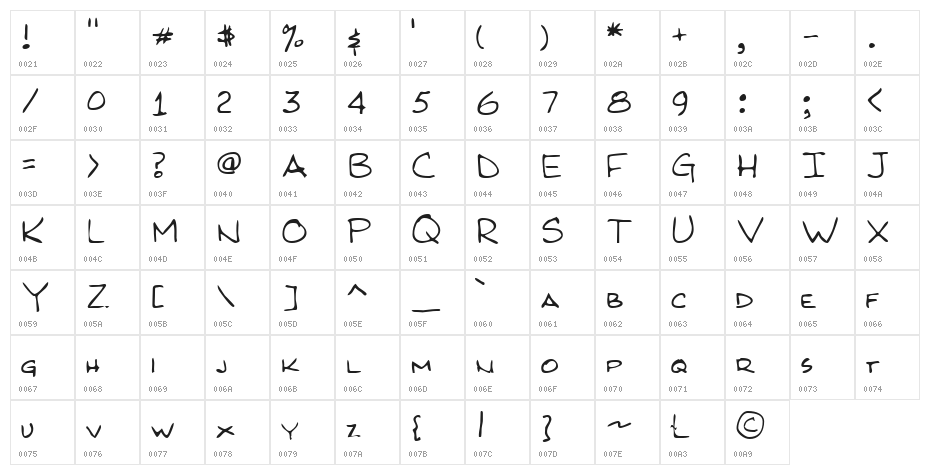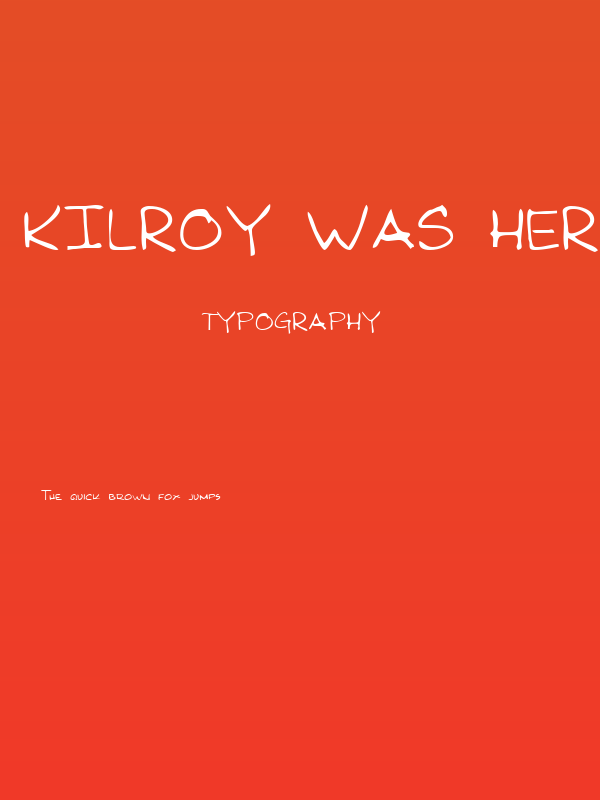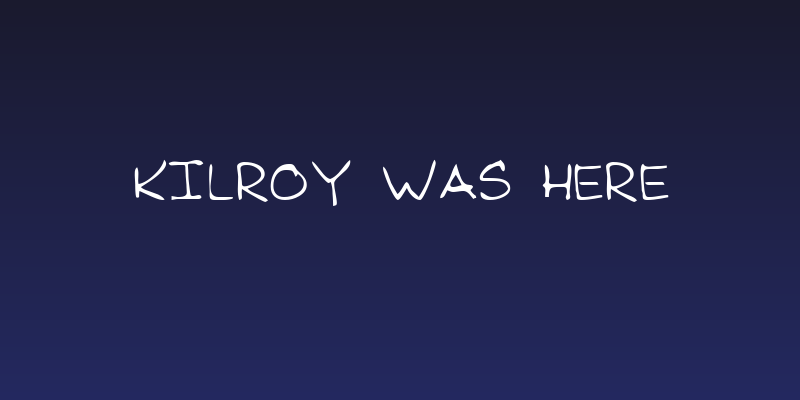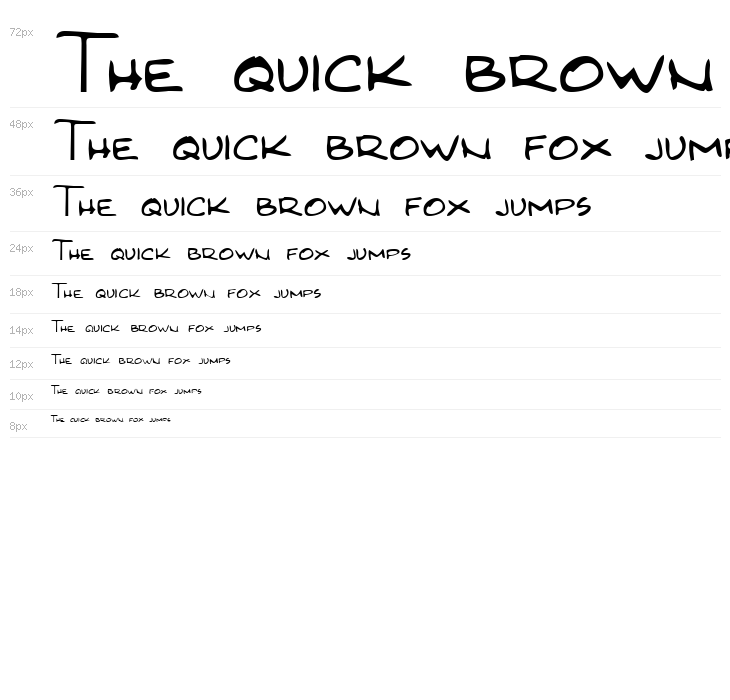
Kilroy Was Here Font
Kilroy Was Here Description
This font exudes a playful and informal vibe, characterized by its hand-drawn appearance. The letters are slightly irregular, giving it a casual and approachable feel. The uppercase and lowercase letters maintain a consistent style, with rounded edges and a slight slant that adds to its whimsical nature. The numbers and special characters follow the same playful design, making this font suitable for creative and informal projects. Its unique style makes it stand out, yet it remains legible and clear.
| Proposed Projects | Ideal for children's books, comic strips, casual branding, and playful invitations. |